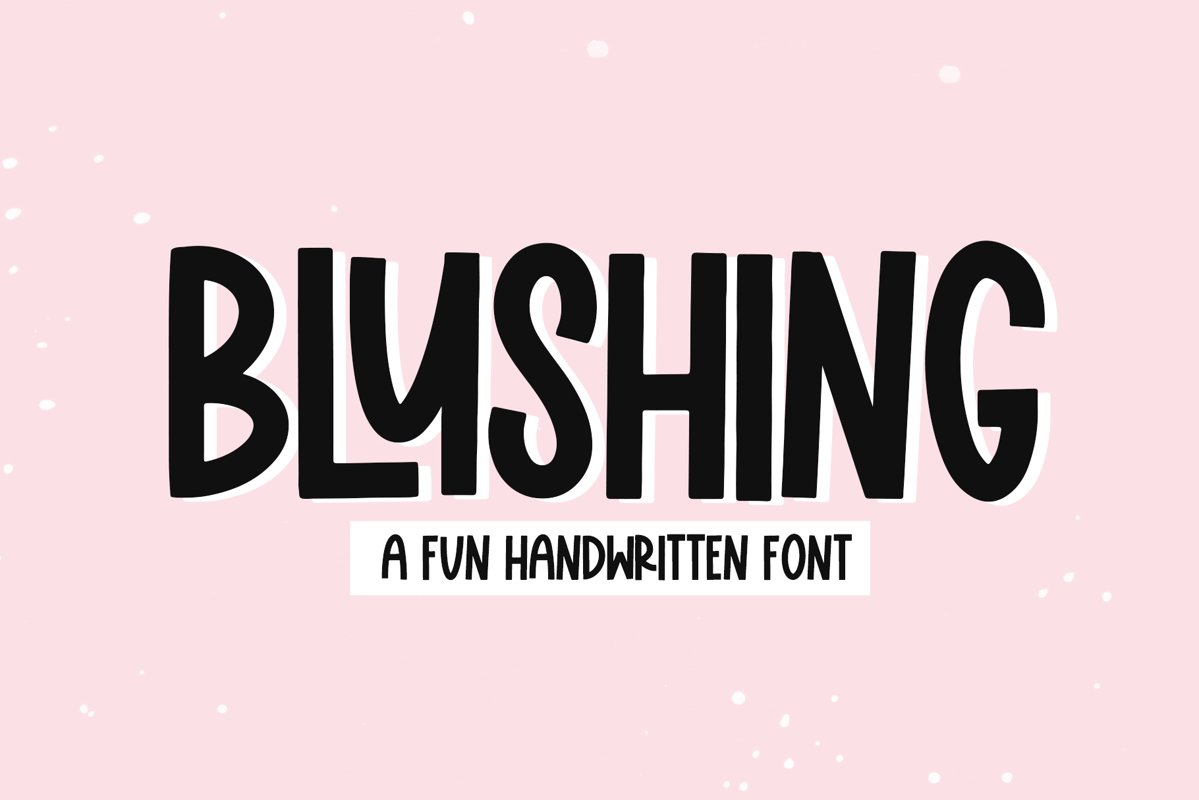
Blushing is a fun handwritten font!
This font is perfect for quotes, shirt designs, websites, branding, children's designs, svg designs, blogs, logos, invitations and more!